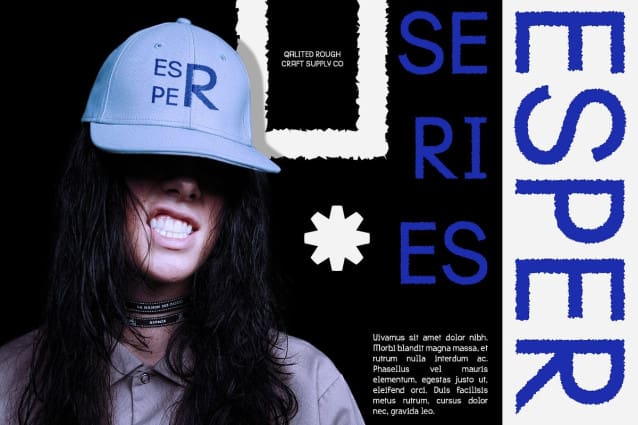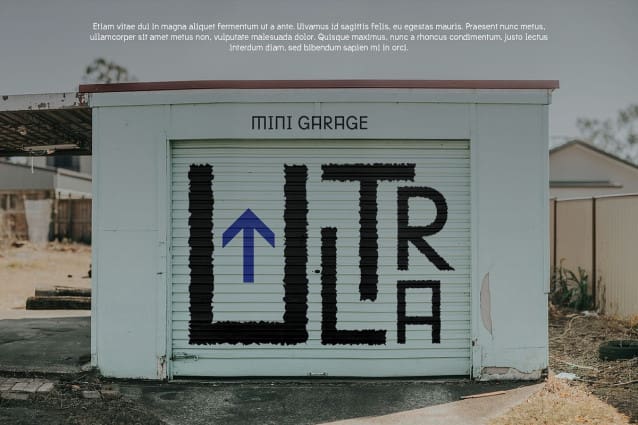
Qalited Rough Font
Qalited Rough Font is a sans-serif font with an industrial style and rough effect. Ideal for designs aiming to convey a rugged, sturdy, and industrial impression, this font provides a unique and powerful look to various design types.
Ideal for Industrial Impressions Perfect for headlines, banners, and other display purposes, Qalited Rough ensures your message is both seen and remembered. Its industrial style and rough effect make it a compelling choice for designs seeking to create a strong and industrial impression.
Versatile and Powerful Despite its rugged appearance, Qalited Rough remains versatile and powerful. Its sans-serif style makes it suitable for a wide range of projects, from branding to digital designs, where a font that conveys strength and industrial vibes is essential for making a statement.
Perfect for Adding a Unique Industrial Touch Qalited Rough is ideal for projects requiring a font with a unique industrial touch. Whether you’re designing a poster, logo, or website, this font will undoubtedly add a distinct and memorable element to your designs.